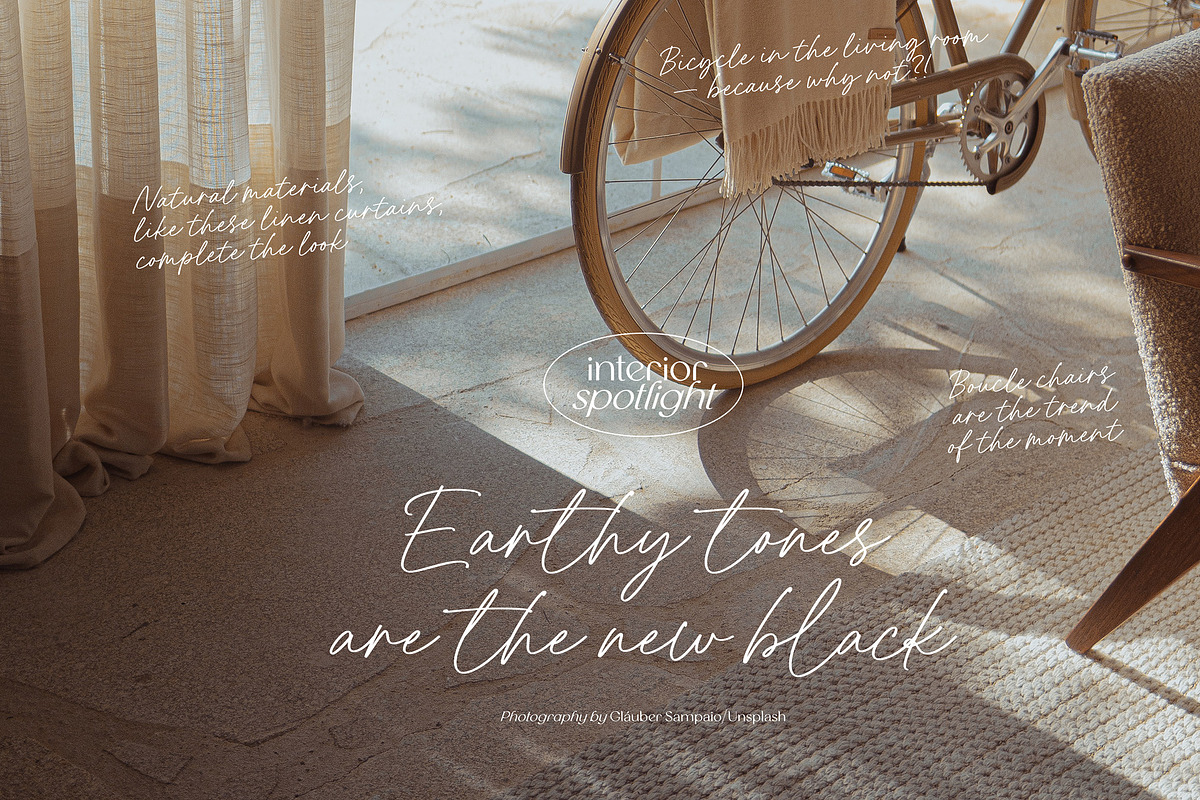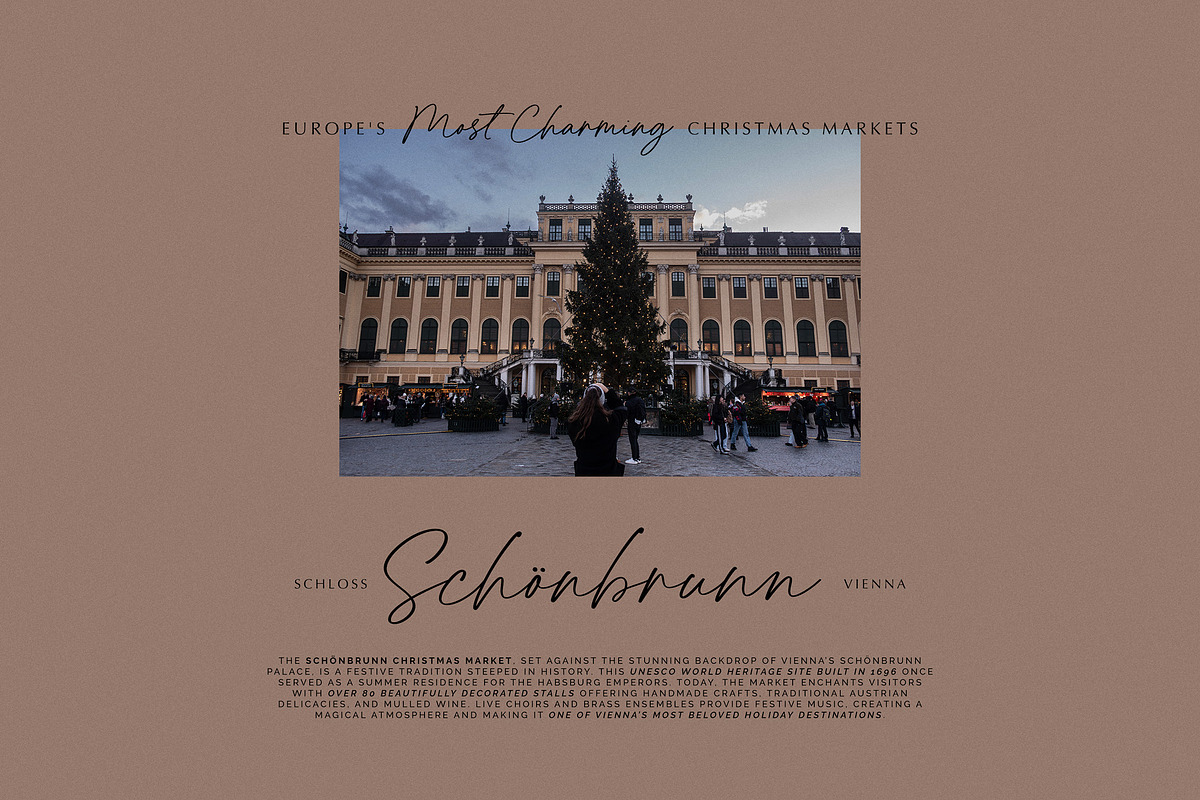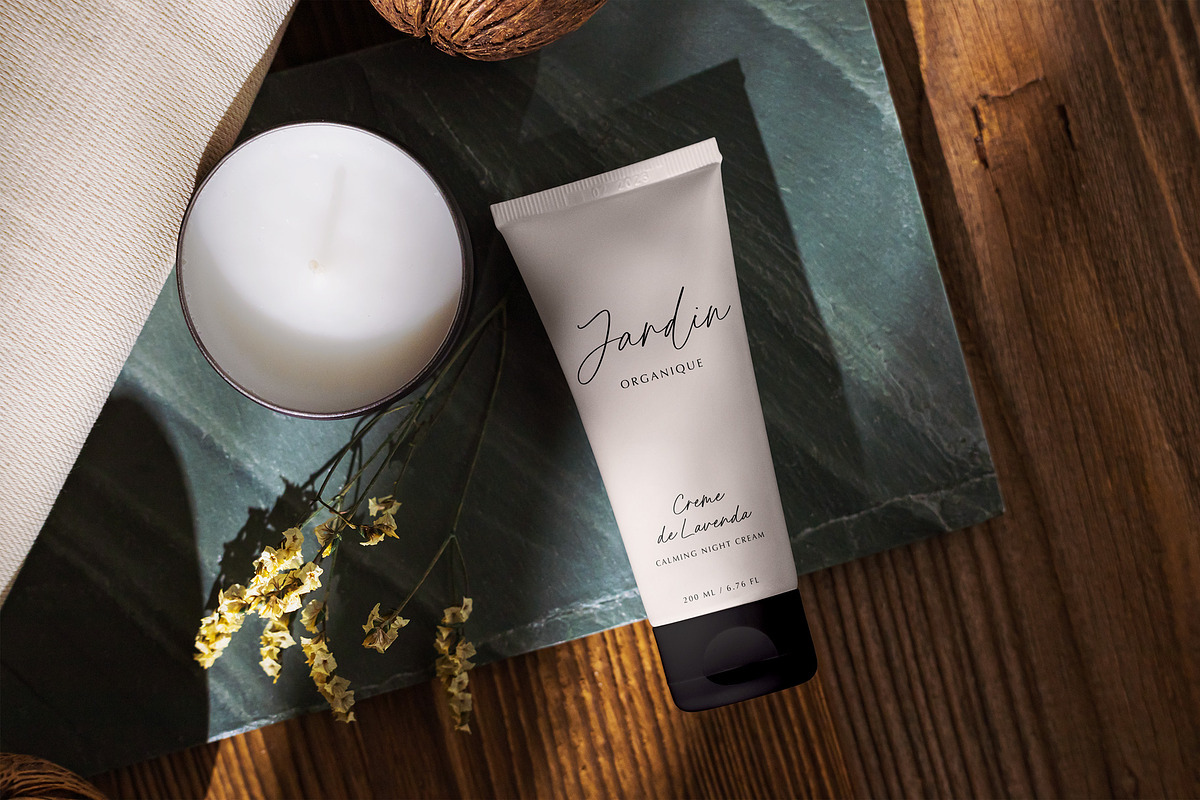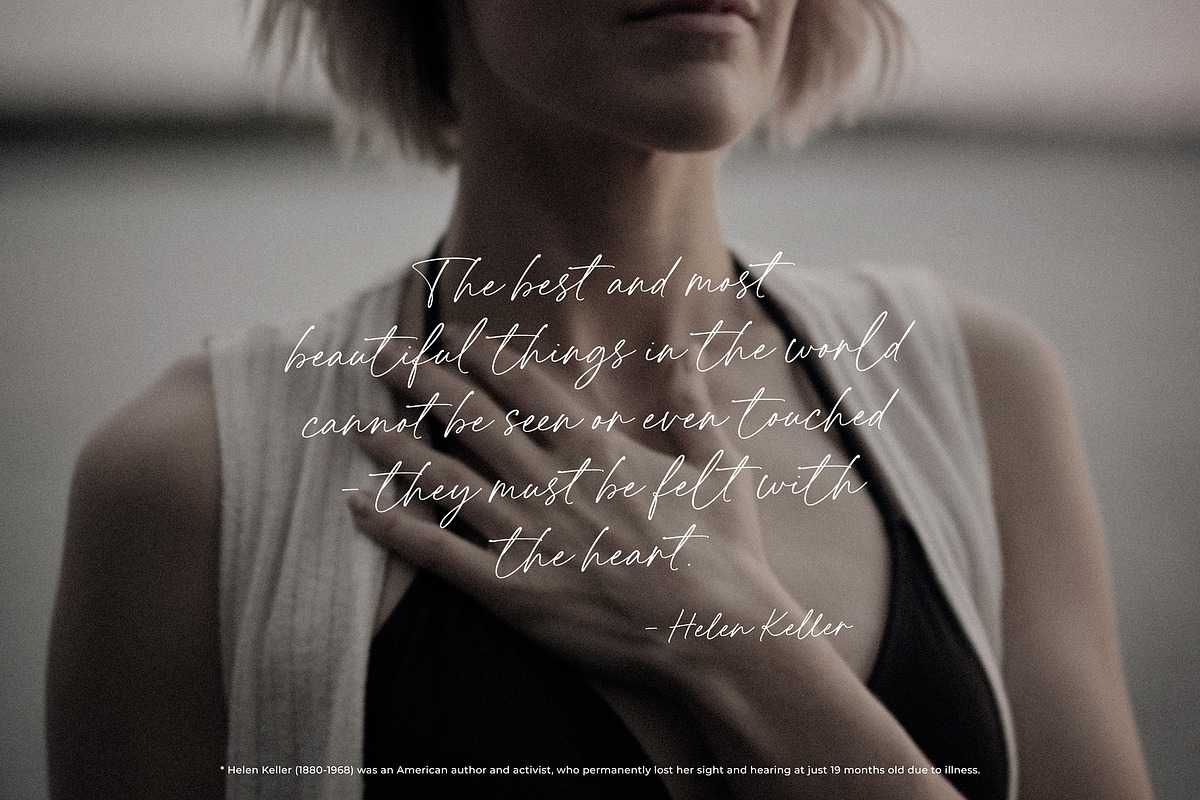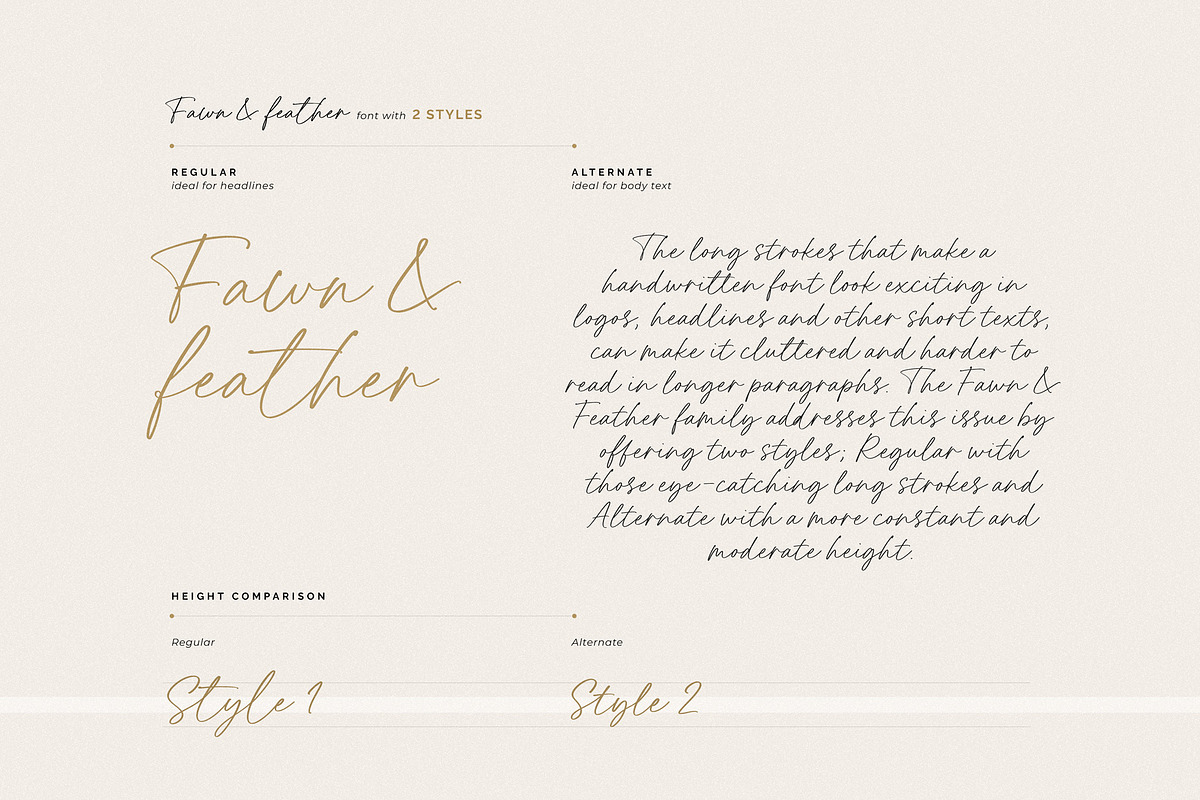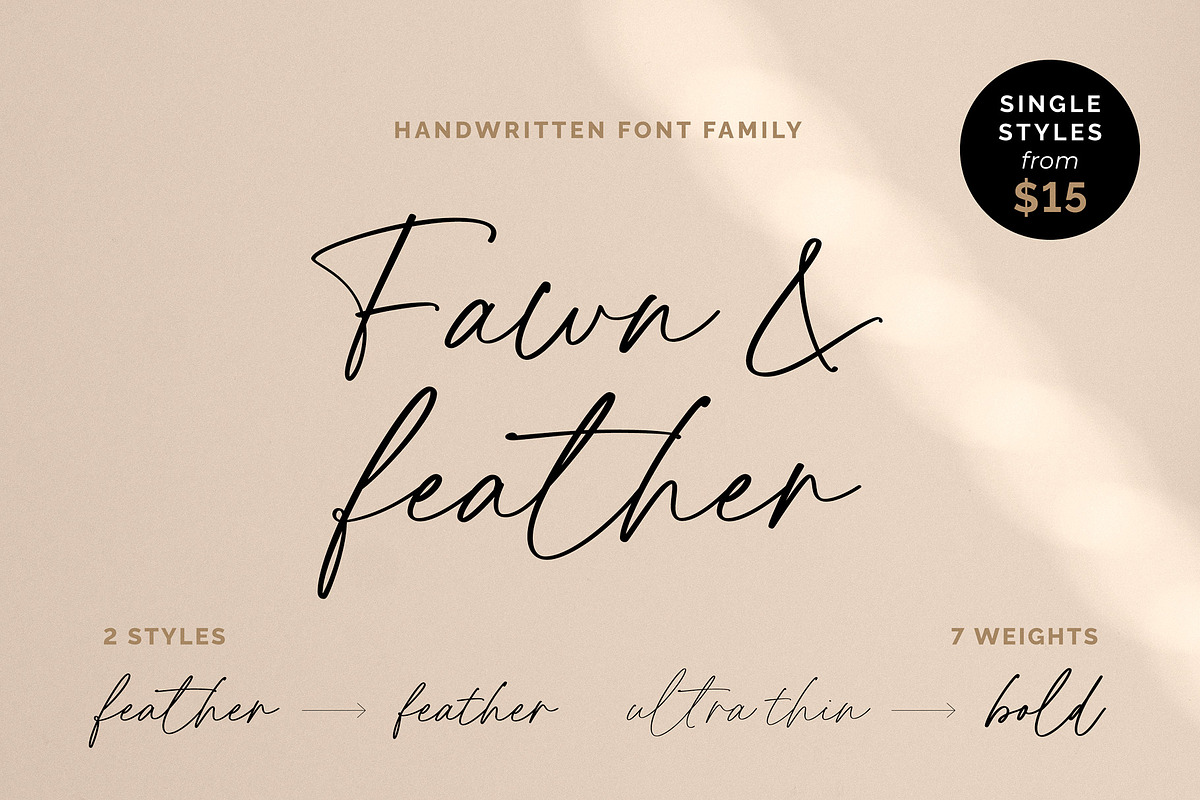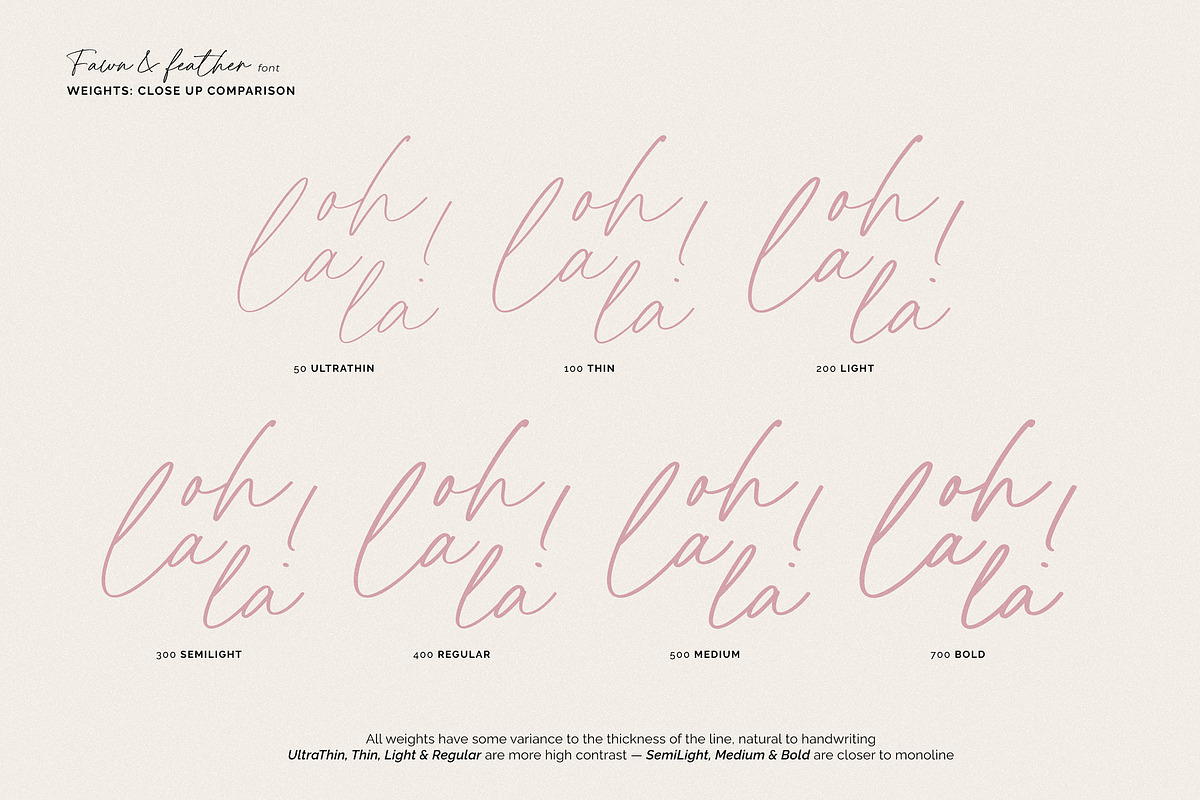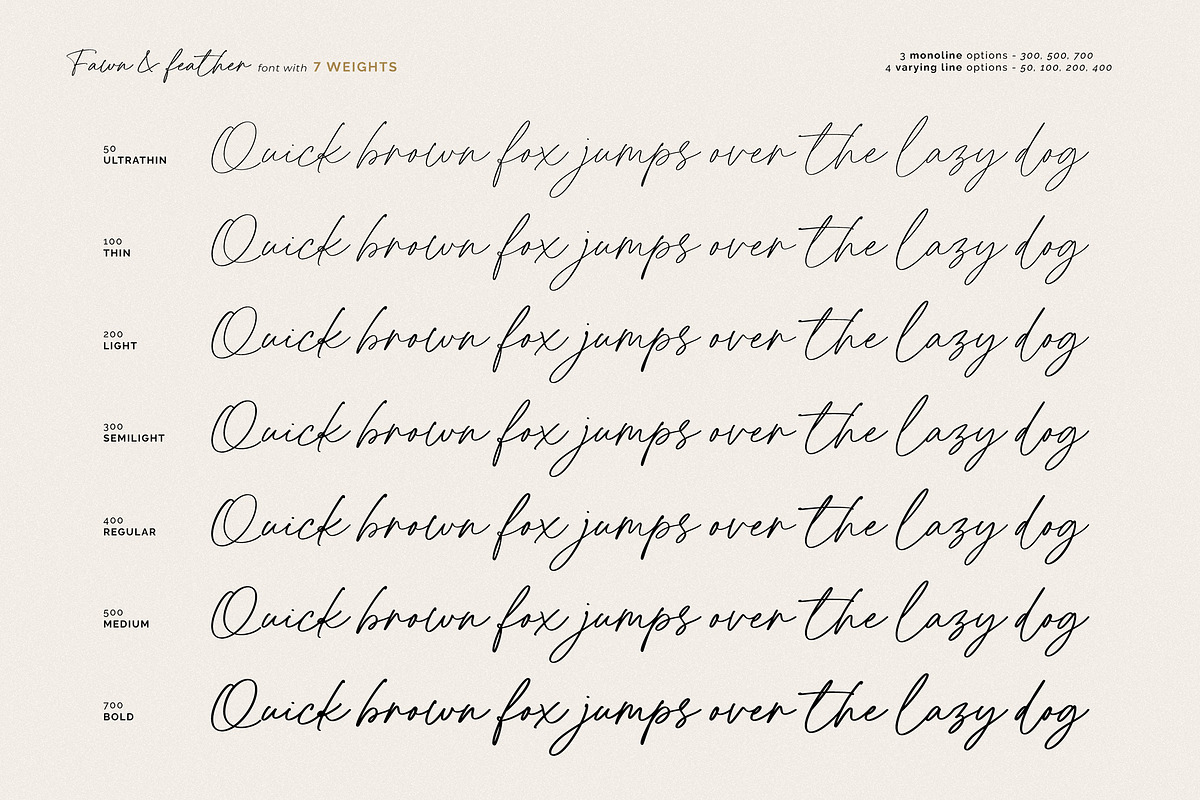
Fawn and Feather 14 font family
Fawn and Feather is a a luxurious handwritten script with the versatility of a multi-weight typeface. This 14 font family consists of 7 weights, each available in 2 styles. The Regular style with it's striking tall letters is ideal for titles and headlines, while the Alternate style is more modest and easy to read in longer texts. With weights ranging from Ultra Thin to Bold for both styles, this typeface will easily adapt to every part of your project.
Multilingual support: English, French, German, Italian, Polish, Spanish, Turkish, Albanian, Catalan, Czech, Croatian, Danish, Dutch, Estonian, Finnish, Hungarian, Icelandic, Latvian, Lithuanian, Maltese, Norwegian, Portuguese, Romanian, Slovak, Slovenian, Swedish